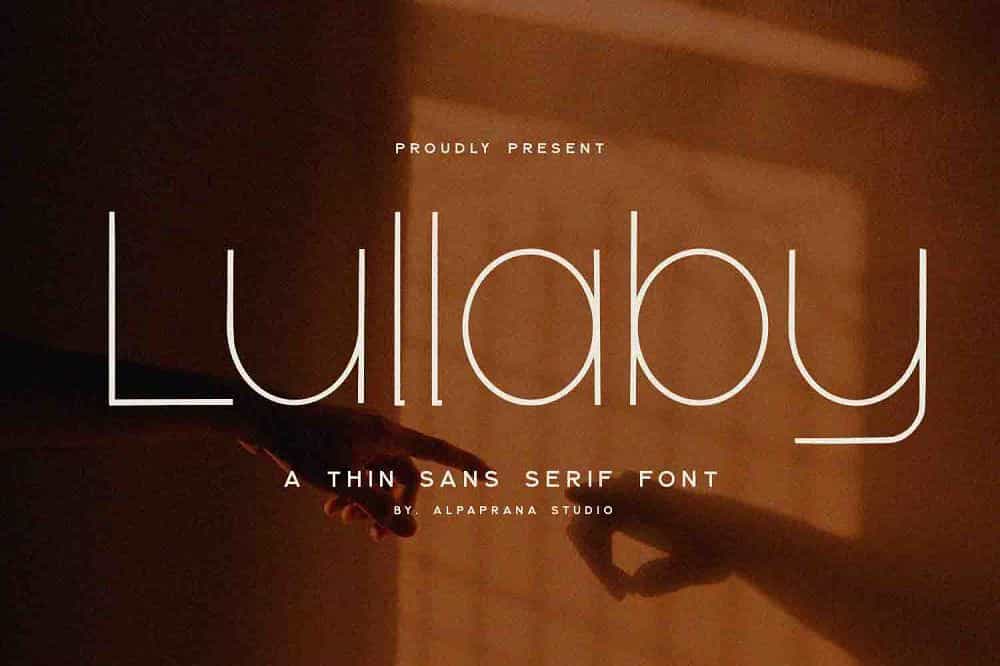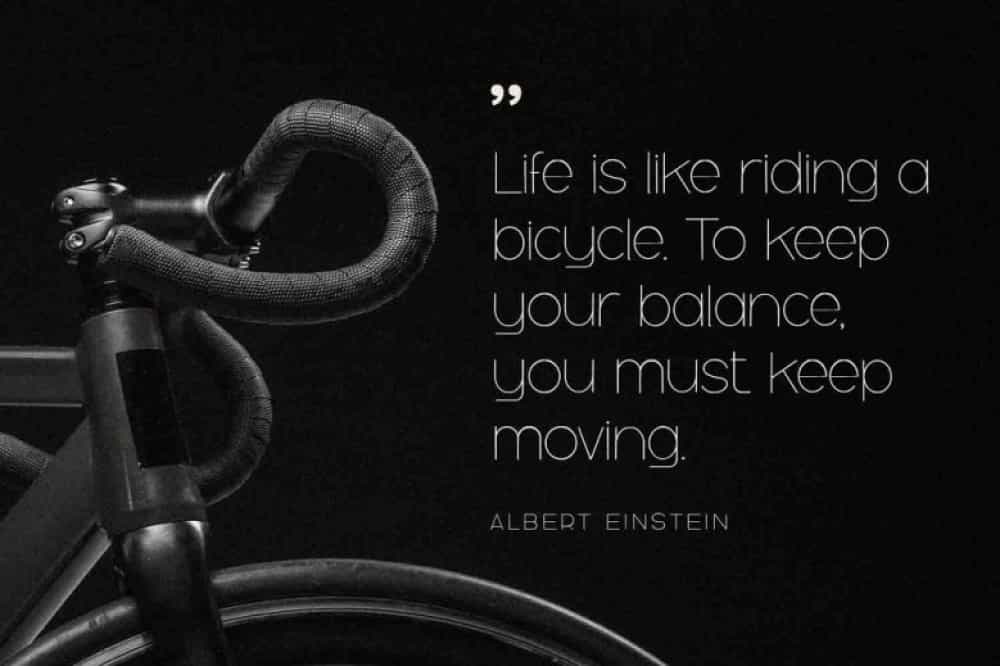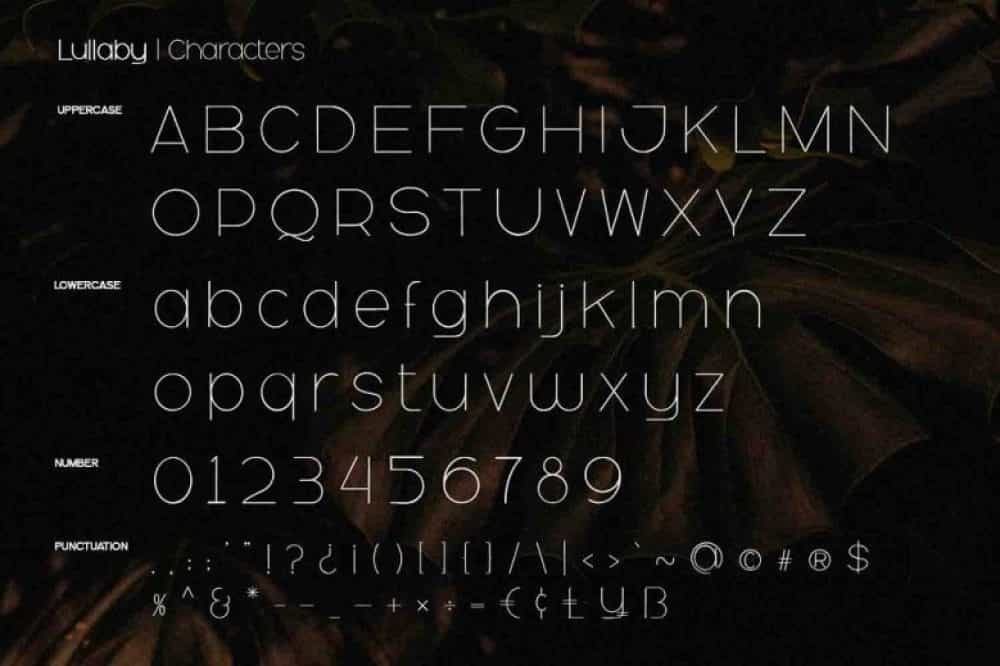
Lullaby is a sans serif font that is clean in styles with elegant as well as modern influences. It will be perfectly used for Branding, Logo Design, Lettering, Logotype, Clothing, Poster, magazine, packaging, posters, shopping bags, t-shirts, book, covers, photography, special events and any other design project you can imagine.